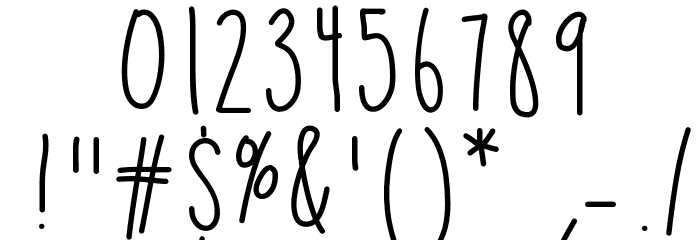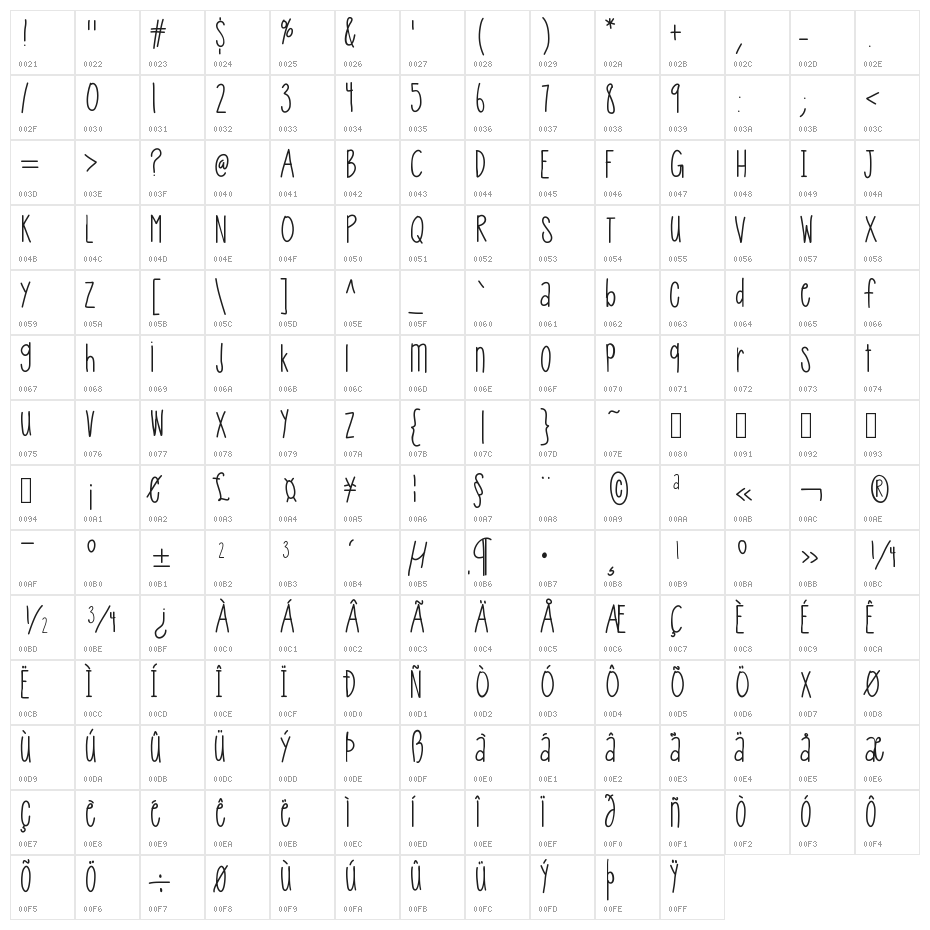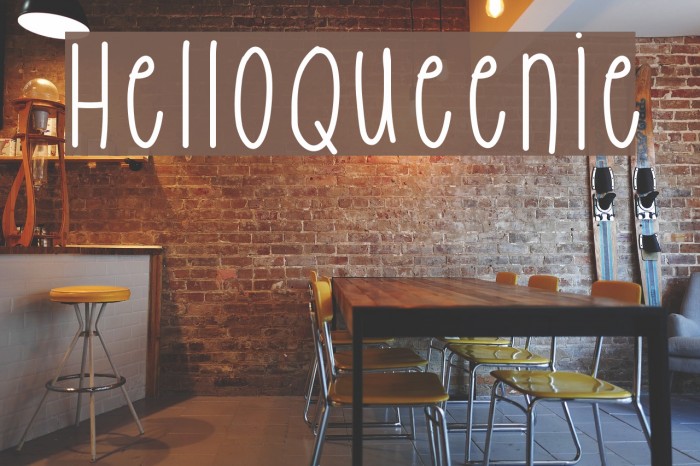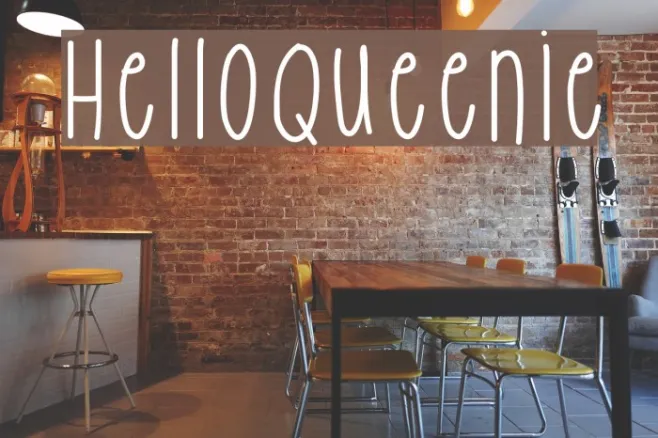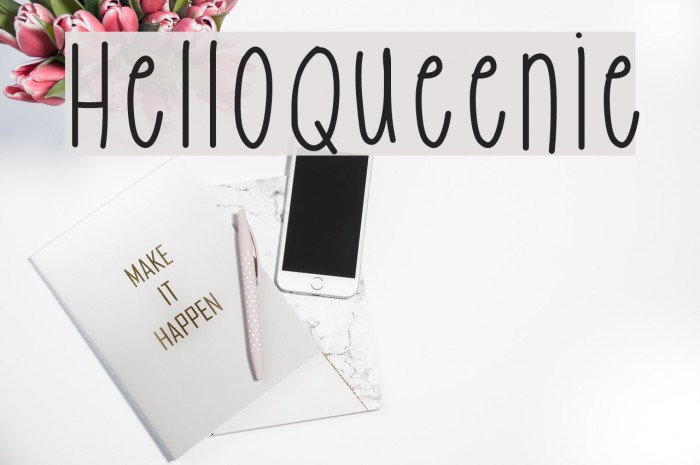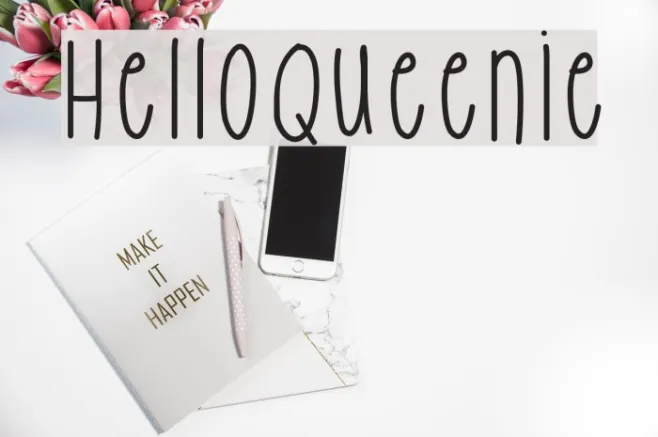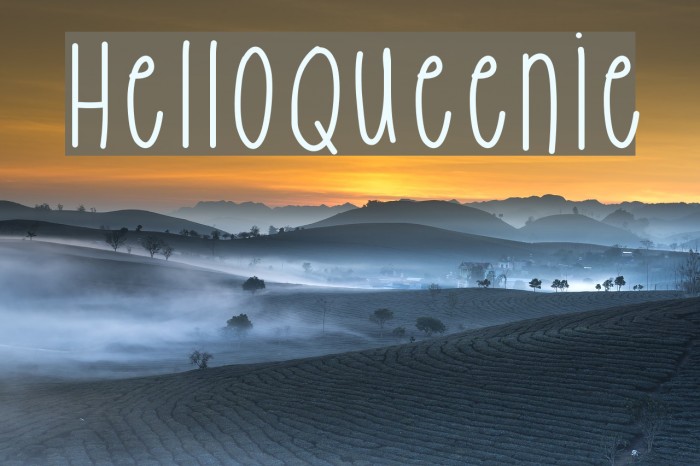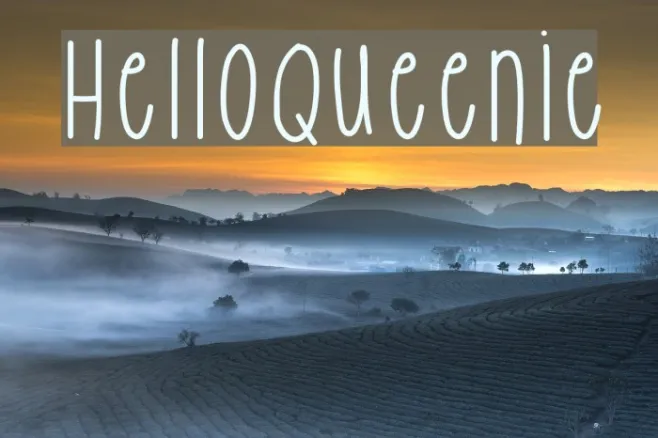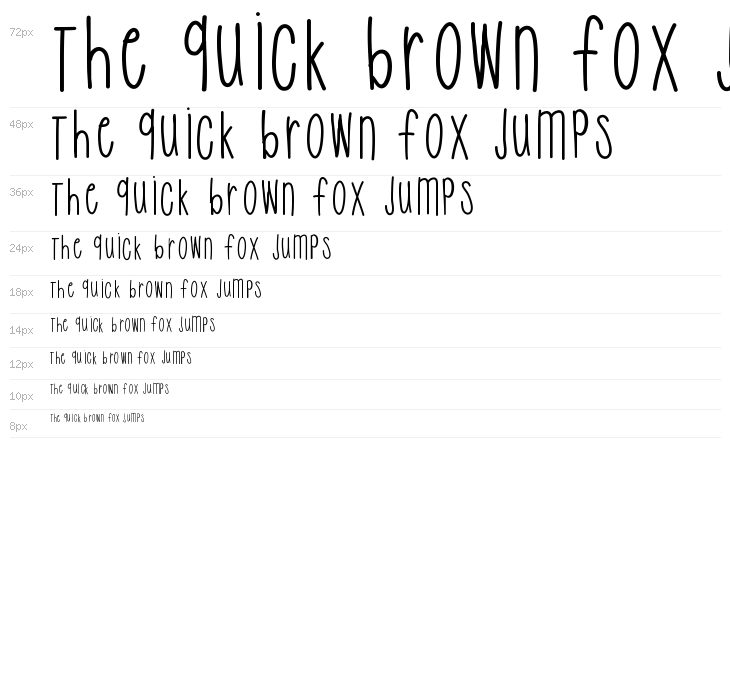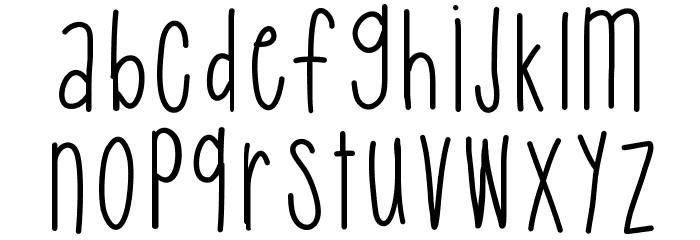
HelloQueenie Font
HelloQueenie Description
This playful and whimsical font features tall, narrow characters with a hand-drawn appearance. The strokes are consistent in width, giving it a uniform look despite its casual style. The uppercase letters are slightly taller than the lowercase, maintaining a cohesive flow. The numbers and special characters follow the same playful design, making them easily recognizable. This font's informal and friendly vibe makes it suitable for creative projects that require a personal touch.